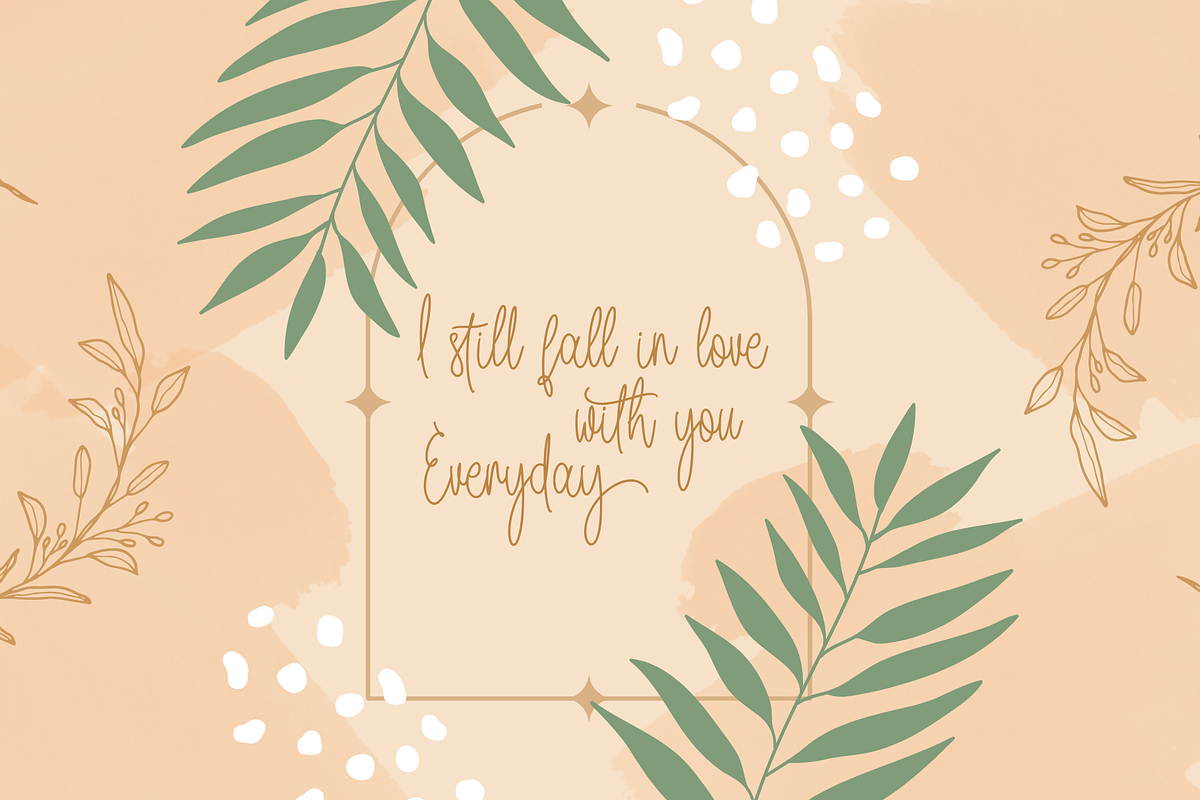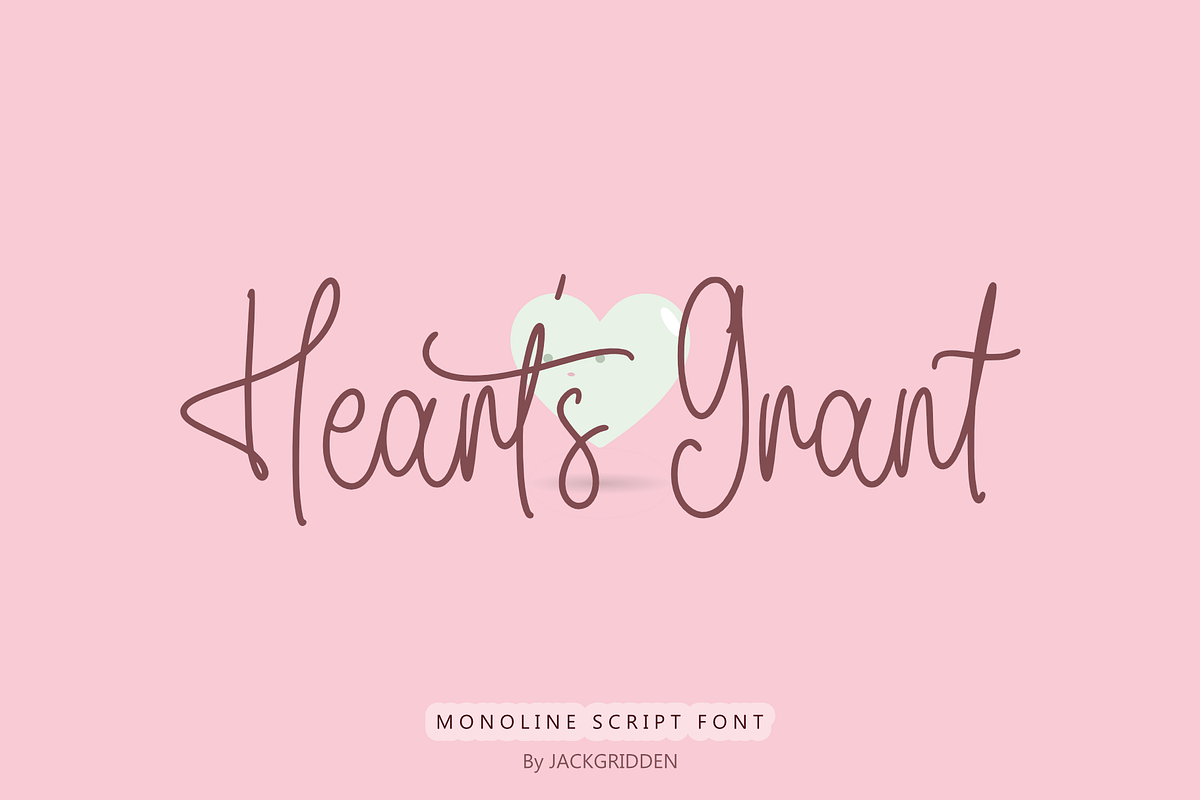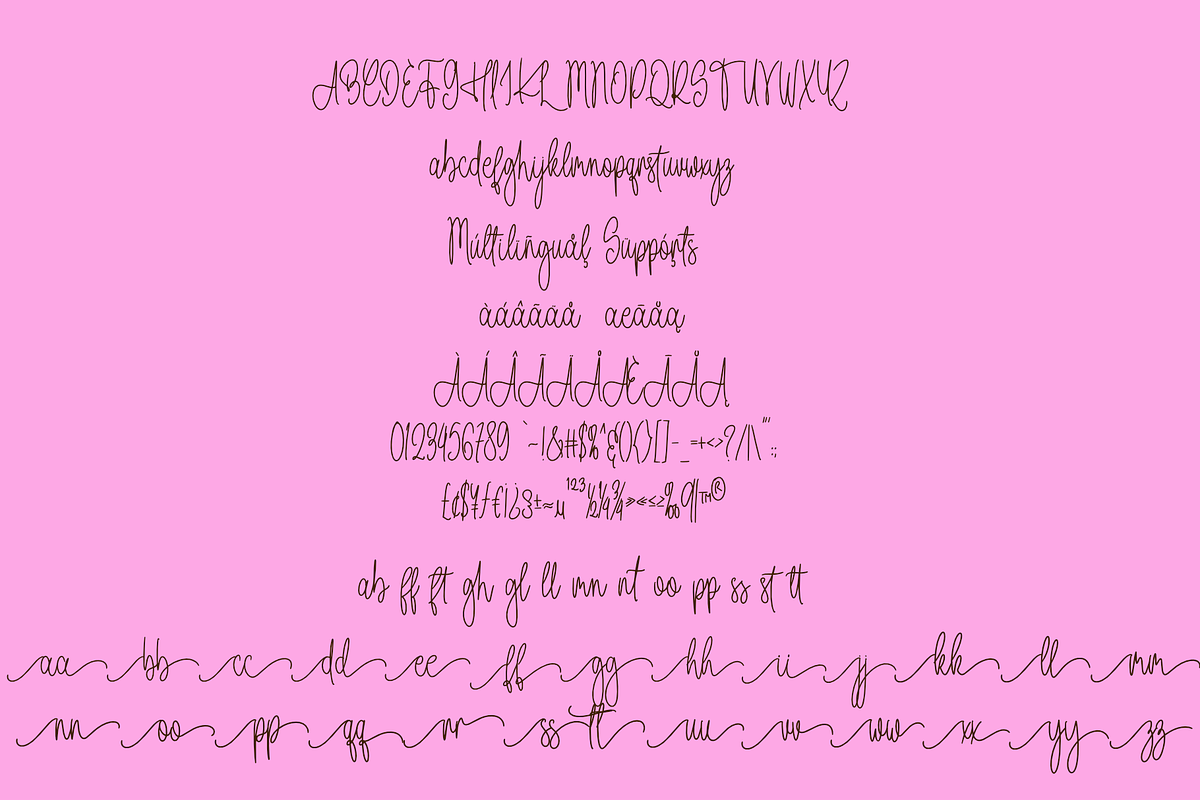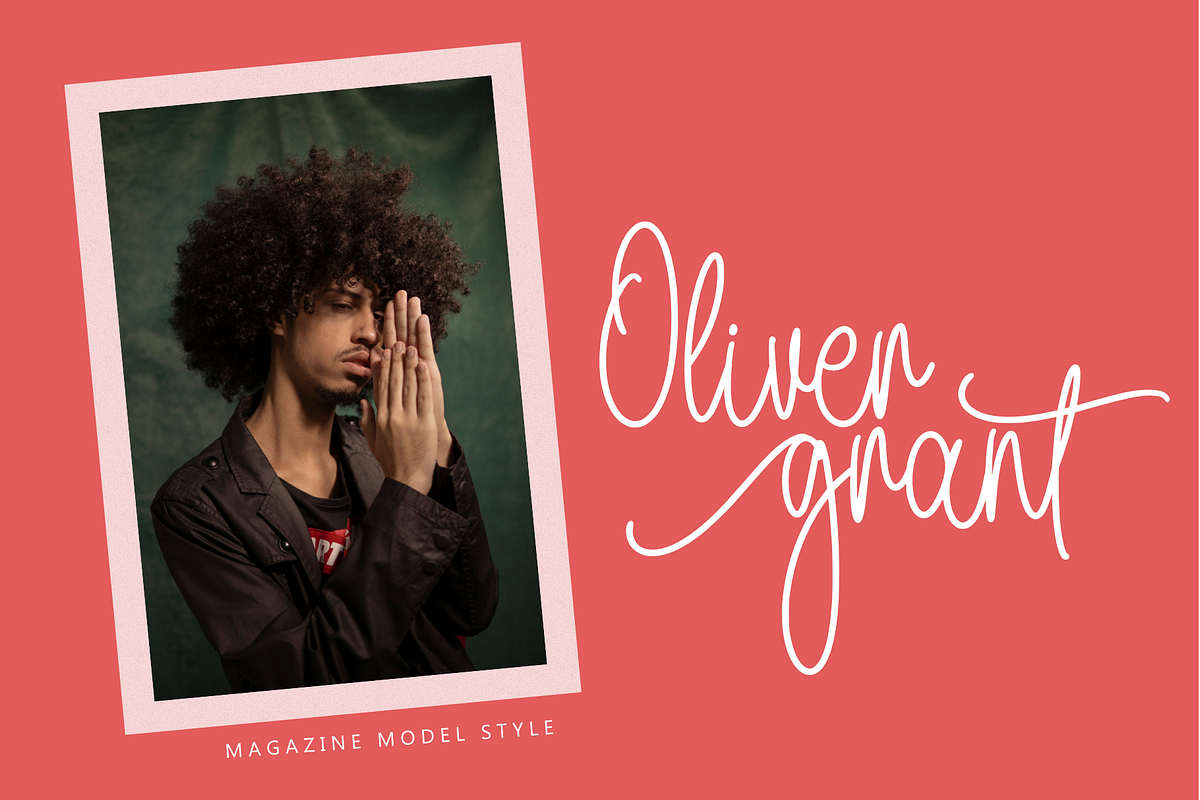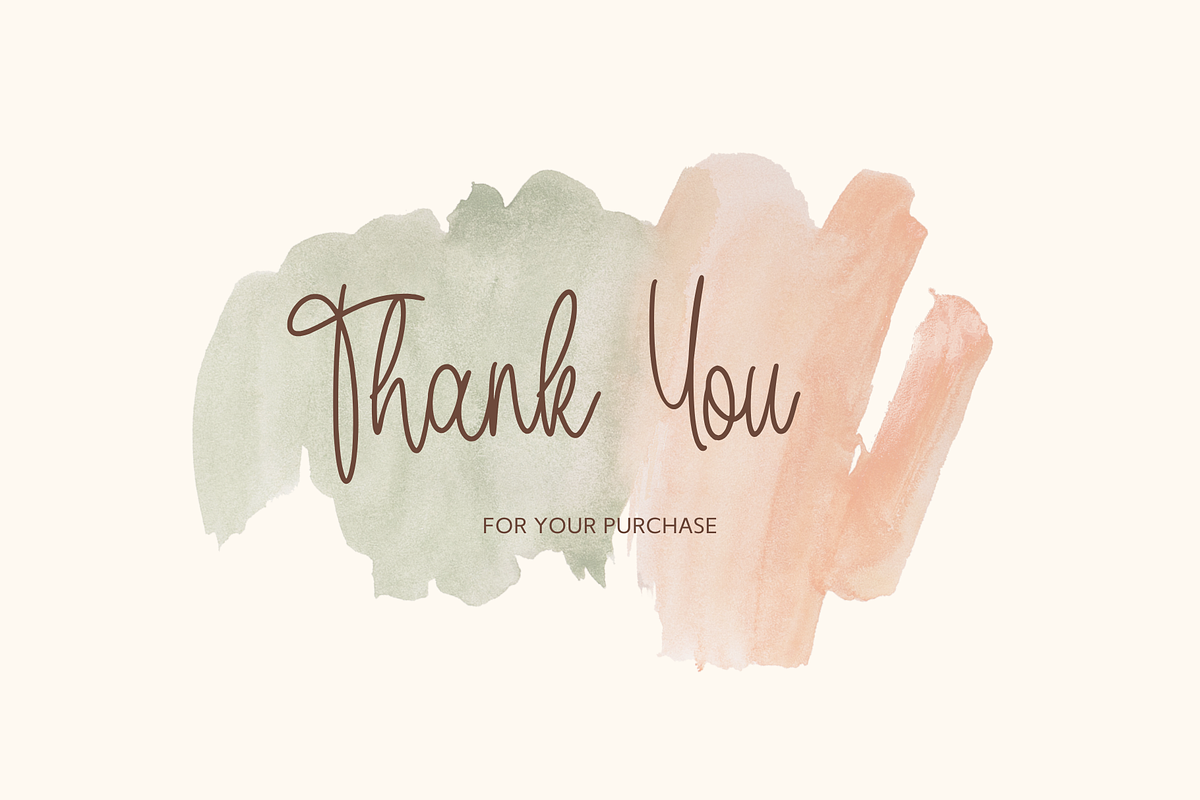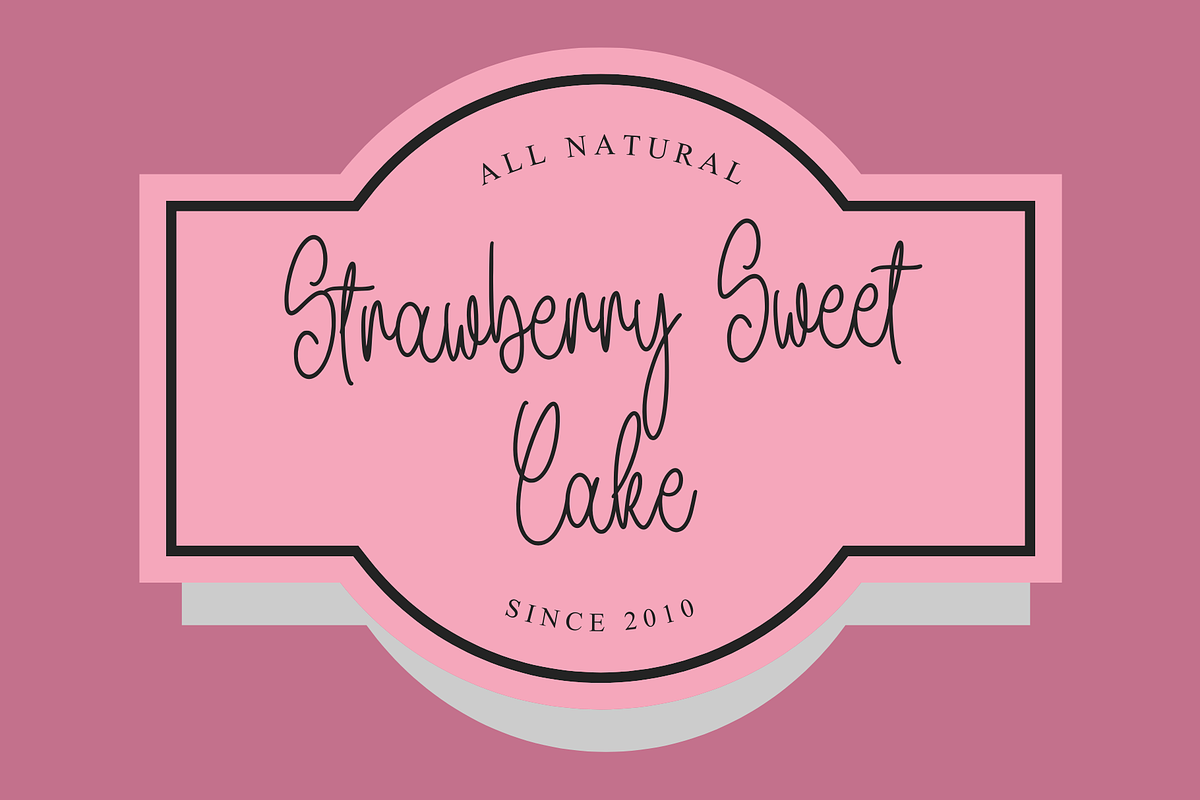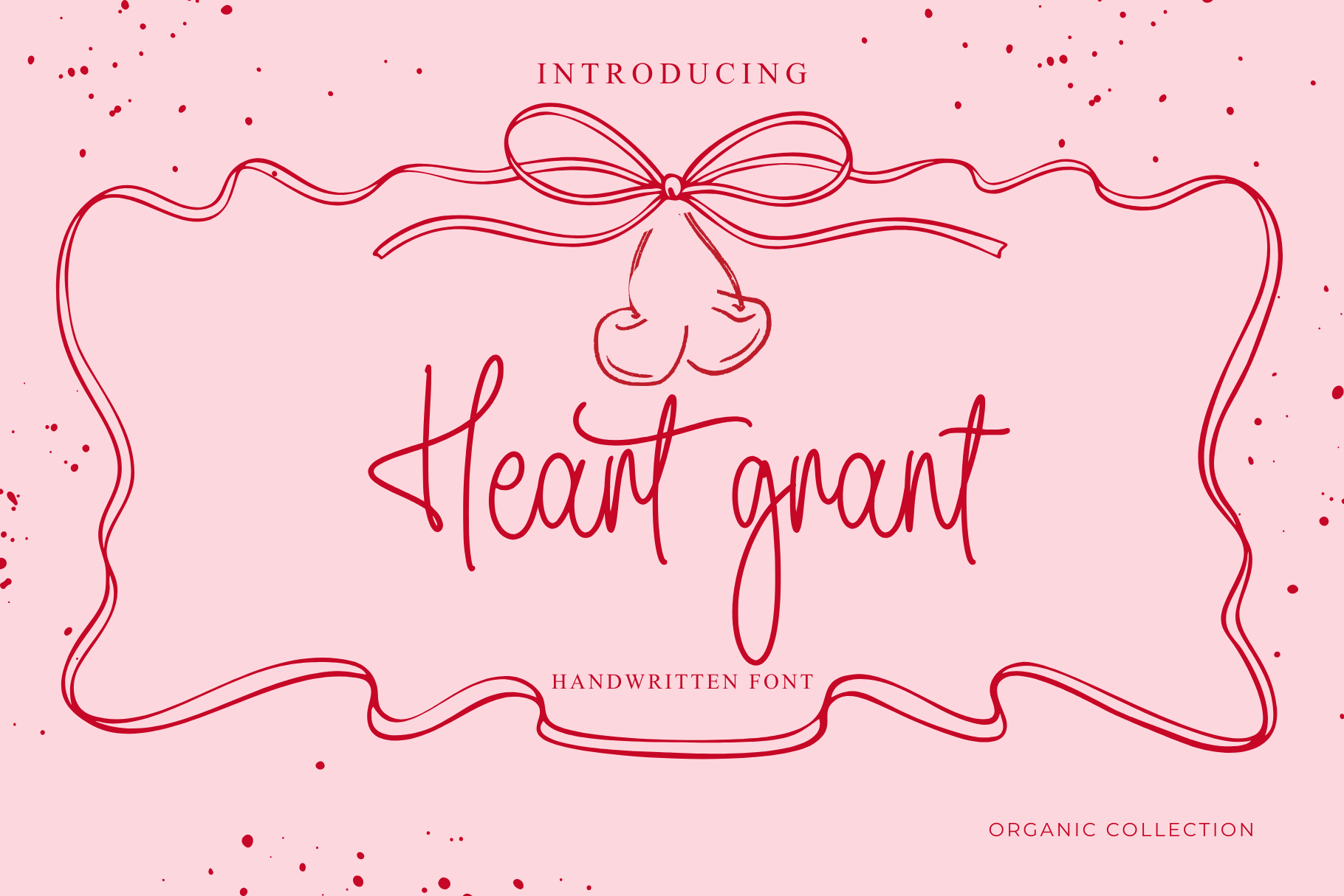
Heart's Grant | Monoline Font
Heart's Grant is a beautifully crafted monoline script font that captures the essence of love and elegance. With its fluid lines and charming ligatures, this font adds a romantic touch to any design project. Perfect for wedding invitations, greeting cards, logos, and branding, Heart's Grant offers a seamless blend of sophistication and warmth.
This font includes various ligatures and alternates, allowing you to create unique and personalized text effortlessly. Whether you’re designing for a special occasion or looking to elevate your brand, Heart's Grant is the ideal choice to convey heartfelt messages with style.
Beautiful monoline script design Elegant ligatures for seamless connections Alternates for added personalization Versatile for various design applications